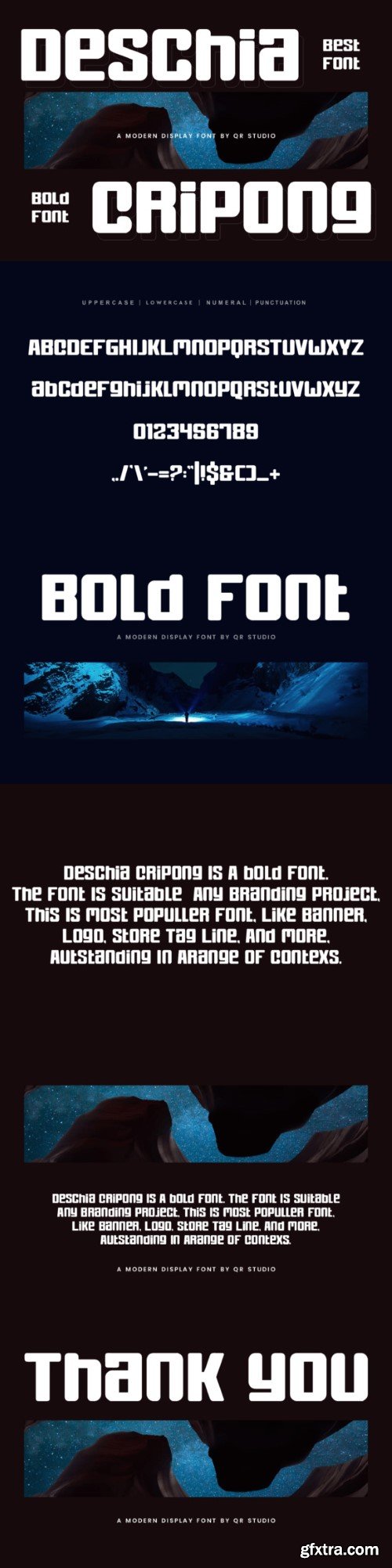
Deschia Cripong is a modern and cool sans-serif display font. Its clean lines and contemporary design make it ideal for headlines, posters, and branding projects. With its sleek and stylish appearance, Deschia Cripong brings a sense of sophistication and professionalism to any creative endeavor